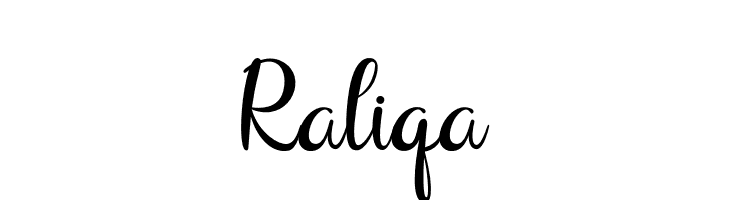
A playful and fluid script font with smooth, connected letterforms.
A modern, elegant handwritten font with fluid, cursive strokes.
A slanted, elegant script font with interconnected letters and a handwritten feel.
A bold, elegant script font with high contrast and flowing, interconnected characters.
An elegant, flowing script font with graceful curves and sophisticated style.
A playful, handwritten font with fluid, connected letterforms.
A bold, expressive script font with a hand-drawn, calligraphic style.
A bold, expressive script font with a playful, brush-like style.
A modern script font with interconnected, flowing characters and bold strokes.